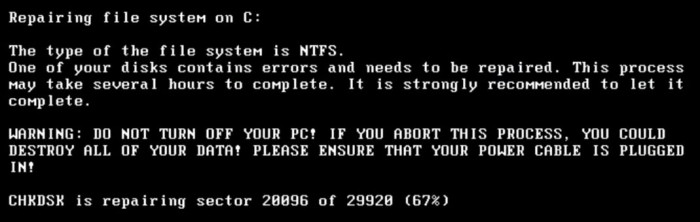
• This font was taken from the video: [Vinesauce] Joel - Vista Destruction: Missing Clips by SuperWiiBros08 but it is at 6:26 somewhere. Enjoy this dos font lol!